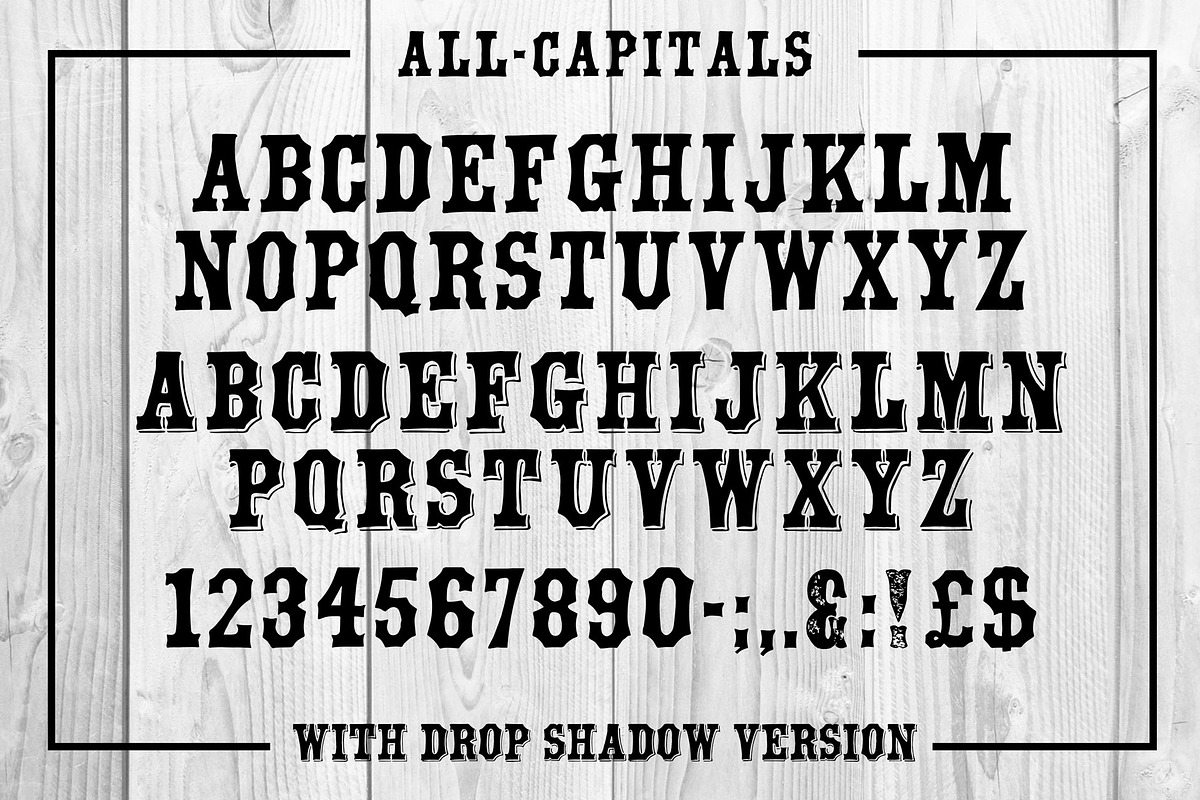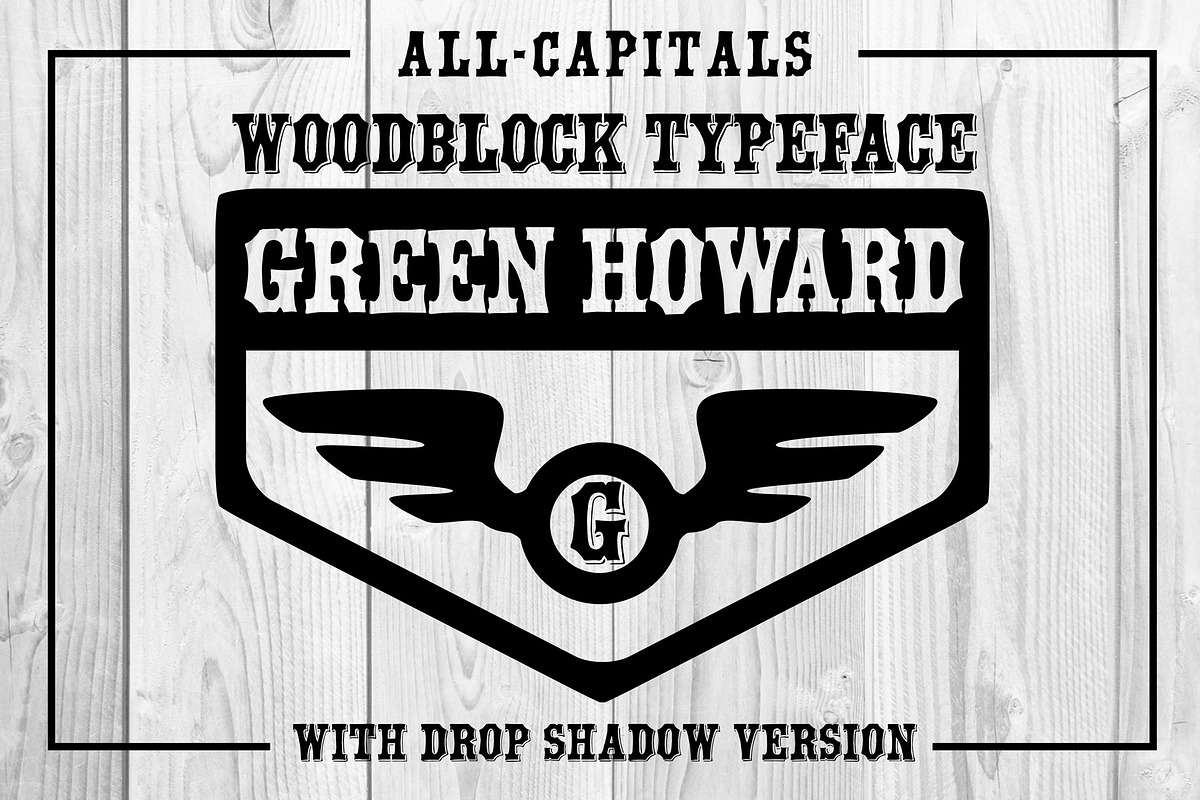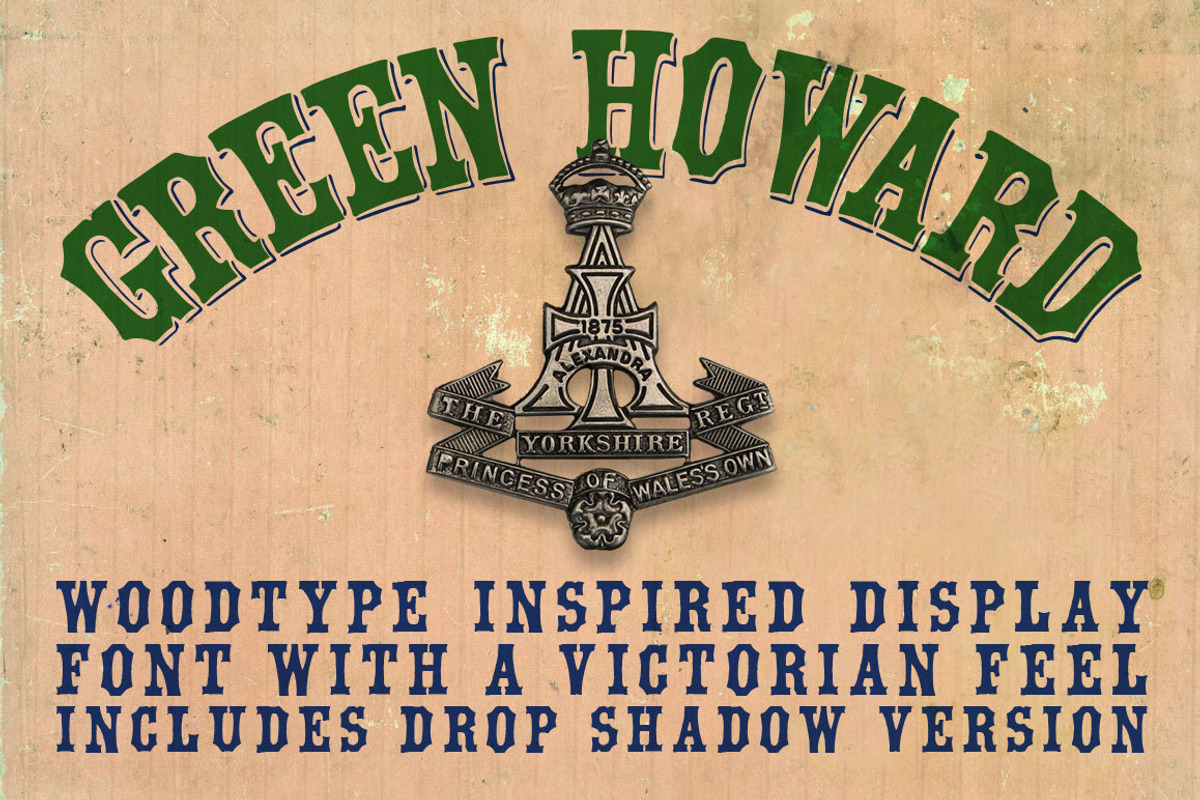
Green Howard Woodblock Font
Green Howard Woodblock Font by Kitch22 Foundry is a font selected for branding, posters, packaging, typography.
Why Green Howard Woodblock Font is worth a look
Green Howard Woodblock Font by Kitch22 Foundry fits naturally into Branding, posters, packaging, typography.